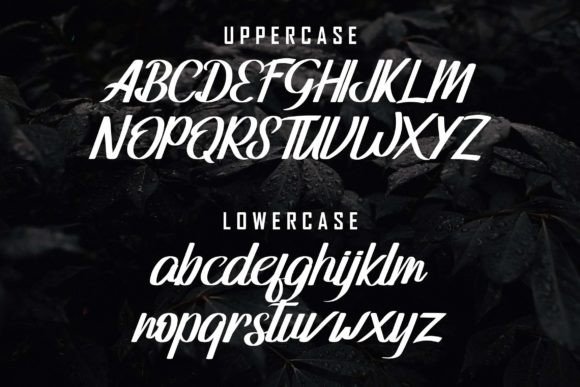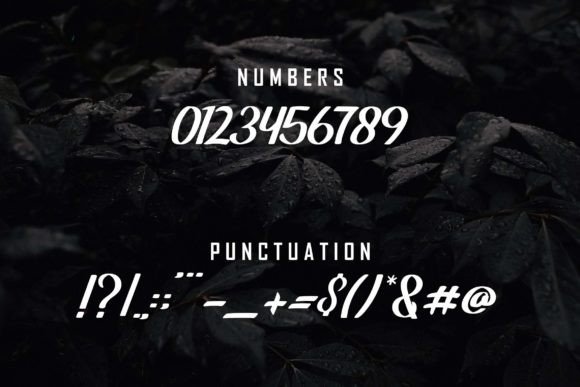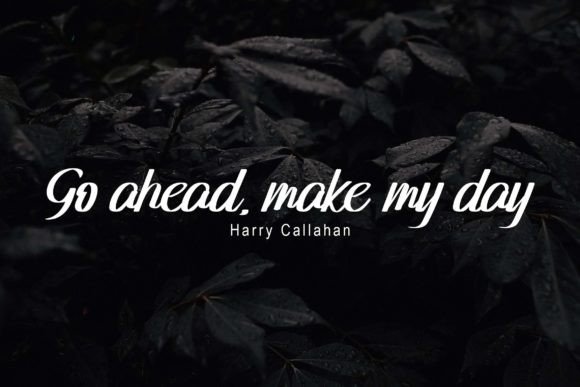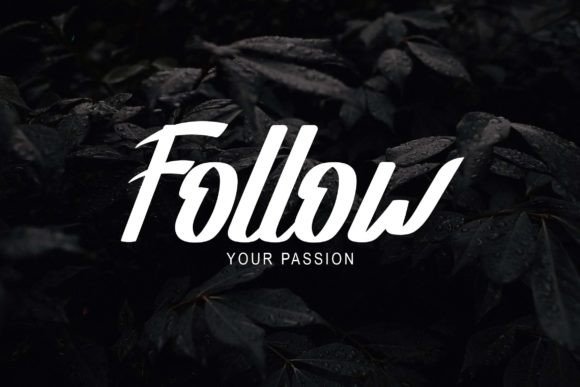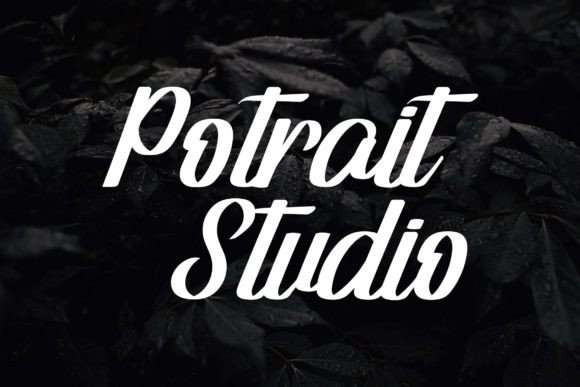
**Manilla: A Bold and Cool Handwritten Script Font**
*Manilla* is a stylish and bold handwritten script font that adds a touch of coolness to your creative projects. Whether you’re engaged in crafting, digital design, presentations, or creating greeting cards, Manilla is the perfect choice to infuse your work with character and personality.
The most distinctive feature of Manilla is its boldness. The thick and pronounced strokes of this font convey confidence and impact, making it stand out in any design context. This boldness can help your text grab attention and leave a lasting impression on your audience.
Manilla’s handwritten aesthetic adds a unique and personalized touch to your projects. Handwritten fonts like Manilla have the ability to make your text feel more relatable and human, enhancing the overall appeal of your work. It’s a font that brings a sense of authenticity to your designs.
One of the advantages of Manilla is its versatility. It can be used in a wide range of applications, from crafting and digital design to presentations and greeting card creation. This flexibility ensures that you can rely on Manilla for various projects across different creative domains.
When it comes to crafting, Manilla can be a valuable asset. Its bold and distinct letterforms can be used to create eye-catching labels, signs, or decorative elements. Whether you’re working on DIY projects, home decor, or personalized gifts, Manilla can add a touch of creativity and flair.
In digital design, Manilla can serve as a standout headline font. Its bold and expressive nature makes it perfect for titles, headers, and attention-grabbing text elements. It’s a font that can help convey your message with impact and style.
Manilla also works well in presentations, where it can be used to emphasize key points and headings. Its bold strokes ensure that your audience won’t miss important information, and its handwritten charm adds visual interest to your slides.
For greeting card makers, Manilla offers a stylish and contemporary choice for adding text to your designs. Whether you’re creating birthday cards, thank you notes, or invitations, Manilla’s bold script can make your cards feel modern and appealing.
In summary, *Manilla* is a bold and cool handwritten script font that’s versatile and impactful. It’s perfect for a wide range of creative projects, from crafting to digital design, and it adds a touch of character and style to your work. With Manilla, you can confidently make your text stand out and leave a lasting impression.